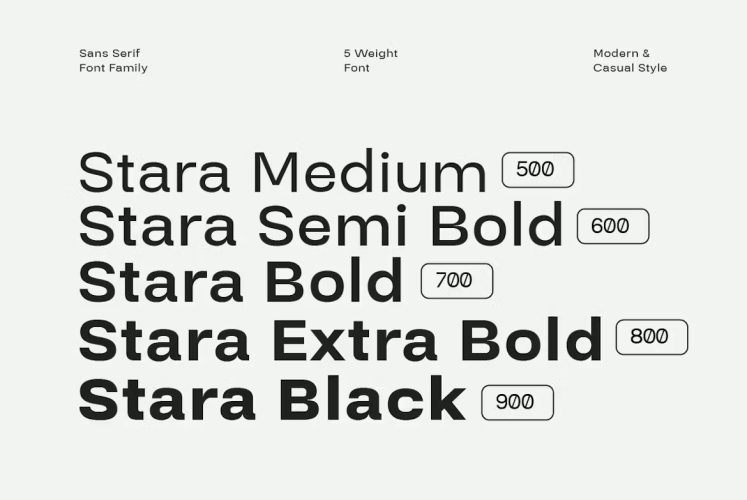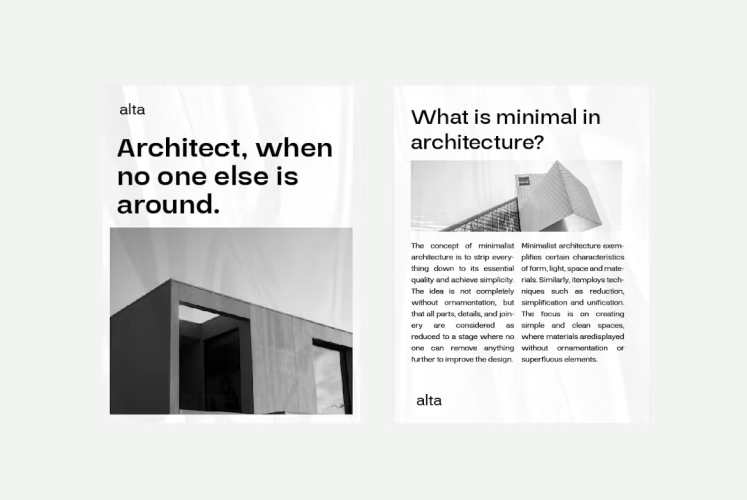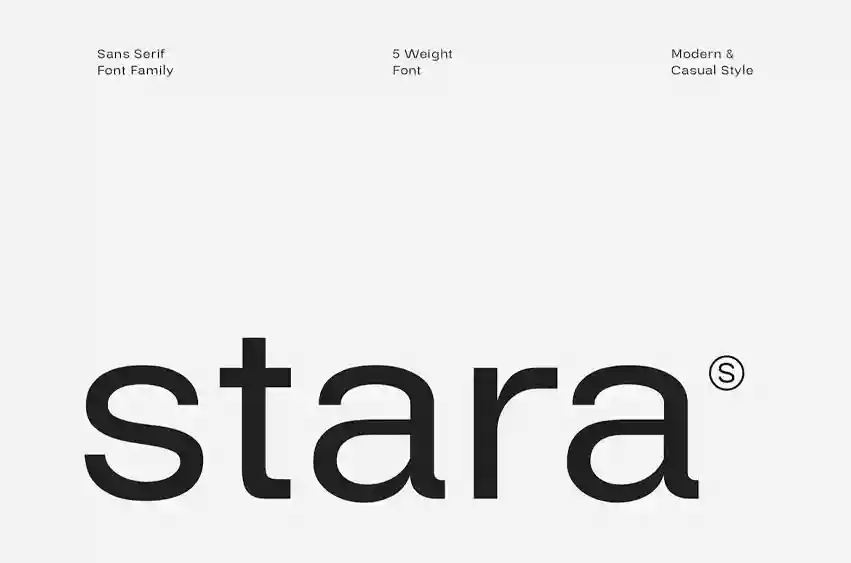
Stara Font
Stara Font is a sans-serif family that combines simplicity and elegance. With its clean design and balanced proportions, this font gives off a modern and professional fe…
Stara Font is a sans-serif family that combines simplicity and elegance. With its clean design and balanced proportions, this font gives off a modern and professional feel. Each letter is carefully designed to ensure optimal clarity and legibility.
The Stara Sans Serif font is suitable for use in various design projects, such as logos, titles, paragraphs, and digital displays, with its ability to give a fresh and elegant look. Files Included
Where Stara Font works best
Stara Font stays legible at small sizes, which makes it a strong choice for navigation, buttons and dashboards in web design and app interfaces.
Clean sans serifs like Stara Font are the default language of SaaS, fintech and product branding.